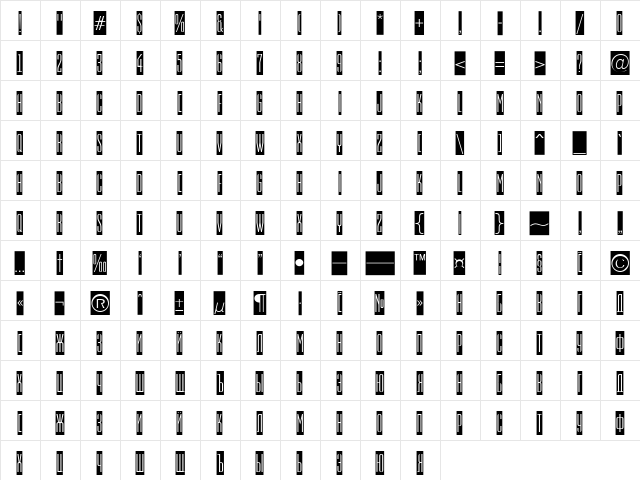
a_EmpirialCm Regular
Design Context for a_EmpirialCm Typeface
a_EmpirialCm offers clean, dependable letterforms without strong stylistic allegiance, making it a practical choice for designers who need flexibility.